30+ Happy Mothers Day Quotes for Lovely Celebration Message
Sending thoughtful messages usually is the way to convey gratitude and love on Mother’s Day. This time, we provide a list of meaningful happy mothers day quotes to express your appreciation for your reference. Along with that are font recommendations to make the messages feel closer and dearer.
10 Quotes for Mothers Day Card Messages
- “Mom, thank you for providing a treasure chest filled with love, laughter, and a few well-placed snacks!”
- “Thank you for always guiding me, even if it’s sometimes in a language that only you understand.”
- “Mom, your love sometimes feels like Wi-Fi. It’s invisible but connects me to everything.”
- “No one else but you, Mother, can unearth my stashed academic papers and distinguish the flavor profile of my hidden chocolate supply!”
- “I celebrate your day for you to be the reason for all the eye rolls and laughter!”
- “Dear Mom, your hug’s like a warm cookie that makes everything better and is always just right. Don’t ever lose that crunchiness!”
- ”Much love to the wonder woman who can leap tall piles of laundry in a single bound while carrying my crying baby sister!”
- “Happiest day for you, Mom! For you’re the only person in my whole life who can make burnt toast taste like gourmet cuisine.”
- “Happy Mother’s Day! May your wrist be strong and your joints stand solid!”
Inspirational Quotes of Happy Mother’s Day
- “You were my home, Mother. I had no home but you.” – Janet Fitch, White Oleander.
- “It is entirely because of your example, Momma, that I now believe motherhood is such a worthwhile vocation.”
- “I think I’m my mom’s best friend, more than a daughter” – Carrie Fisher in Bright Lights
- “I’m so appreciative of how you balance caring for me while working hard to be the best mom you can be.”
- “Even after you let go, Mom, I feel the residual effect of your hug that irreplaceably feels like home is everywhere.”
- “Mom, you sprinkle a little magic in the mundane, making every day feel warm.”
- “Cheers to the mom who teaches me how to show up to work like an elegant lady after having a chaotic morning!”
- “Mom, bless you for the sincere smile that lifts up my worries even when you’re in pain.”
- “Bunch of love to the one who’s most patient while guiding this silly teen grew.”
Witty Happy Mothers Day Quotes for Wife
- “Happy Mother’s Day! You’re the glue that holds our crazy family together, even if that glue is sometimes just a lot of coffee!”
- “Let’s celebrate you, who can find anything in the house, except her own sanity. Love you!”
- “Thank you for being my constant and for your heroic efforts in always finding that other shoe and sock!”
- “So lucky to have married someone who can whip up my lunch in minutes while simultaneously taking care of our children!”
- “Every day with you is a new page in our parenting story, and I can’t wait to write more memorable parenting chapters together.”
- “Cheers to my chaotic yet lovely wife, the heartbeat of our home, the love that fuels our dream, and the funniest partner-in-crime of all time.”
- “You are the single, beautiful reason why I continue to hold faith in the reality of miracles. Your diverse tone of voice is a spell that makes the ordinary day extraordinary.”
- “On this Mother’s Day, I celebrate not just your role as a mother, but the incredible woman whose passionate love makes our family whole.”
Sentimental Quotes for Mother-in-Law and Happy Mother’s Day in Heaven Quotes
- “Bless you who cherish me like my own mother and a lifelong friend.”
- “I thank you for being the mother of my other half and for embracing me with a shining example of grace and kindness.”
- “On this special day for mothers, I recognize the warmth and compassion you’ve extended to me over the years. Looking forward to many more memories together. With love, your daughter-in-law.”
- “Dearest Mommy, your warm hug feels like a fluffy cotton that fulfills my tiny heart.”
- “I’m truly thankful for how you’ve made me feel like family from the start and for supporting the life I’m building with your son.”
- “Joyous Mother’s Day in heaven, where you shine brightest and warmest.”
- “A great soul serves everyone all the time. A great soul never dies.” – Maya Angelou.
7 Fonts for Happy Mothers Day Quotes
Pick one or more fonts from the list below to strengthen the nuance of your confession.
1. It Loves you
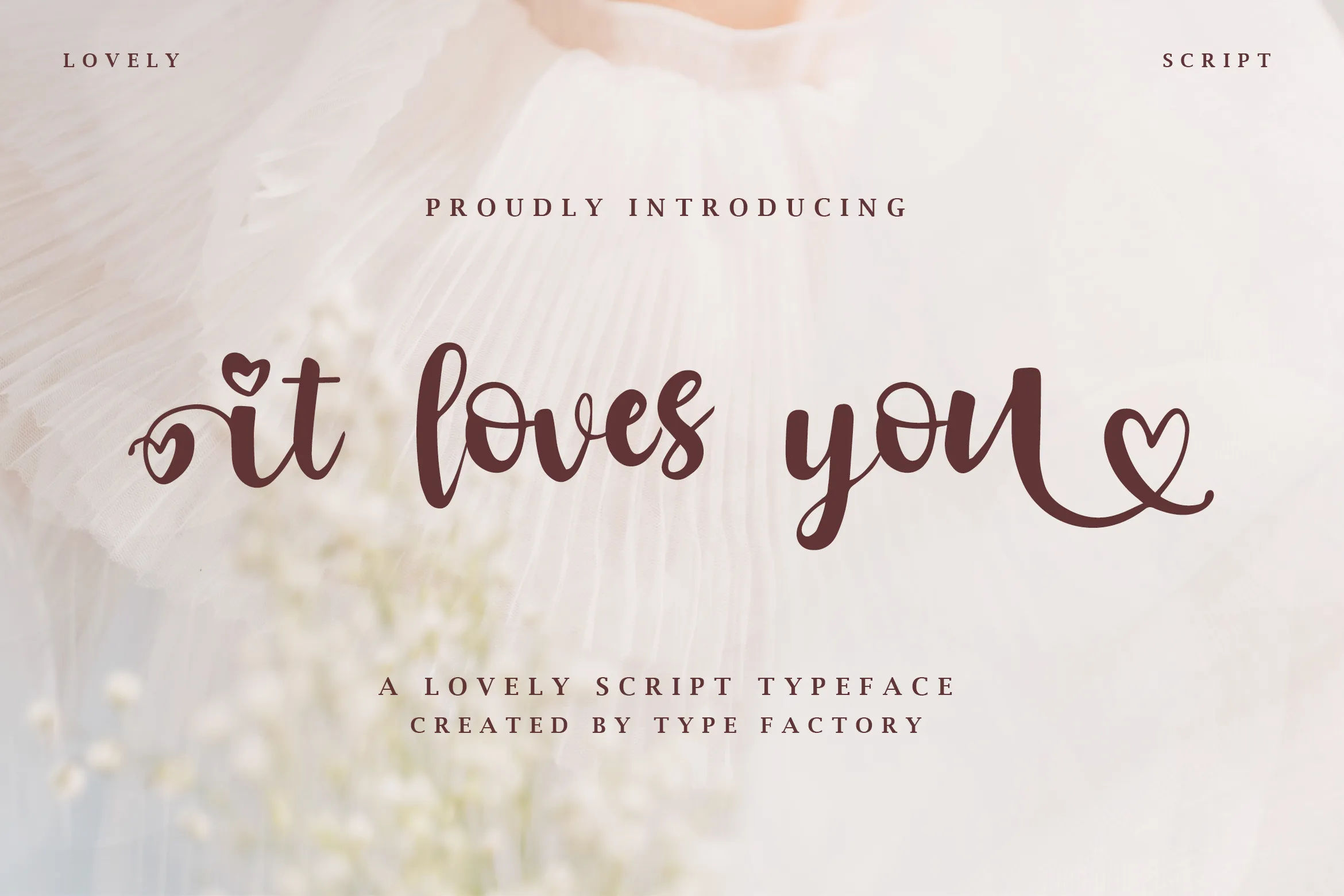
Font with high-contrast strokes and swirly loops make your message feel more admirable.
2. Happineast
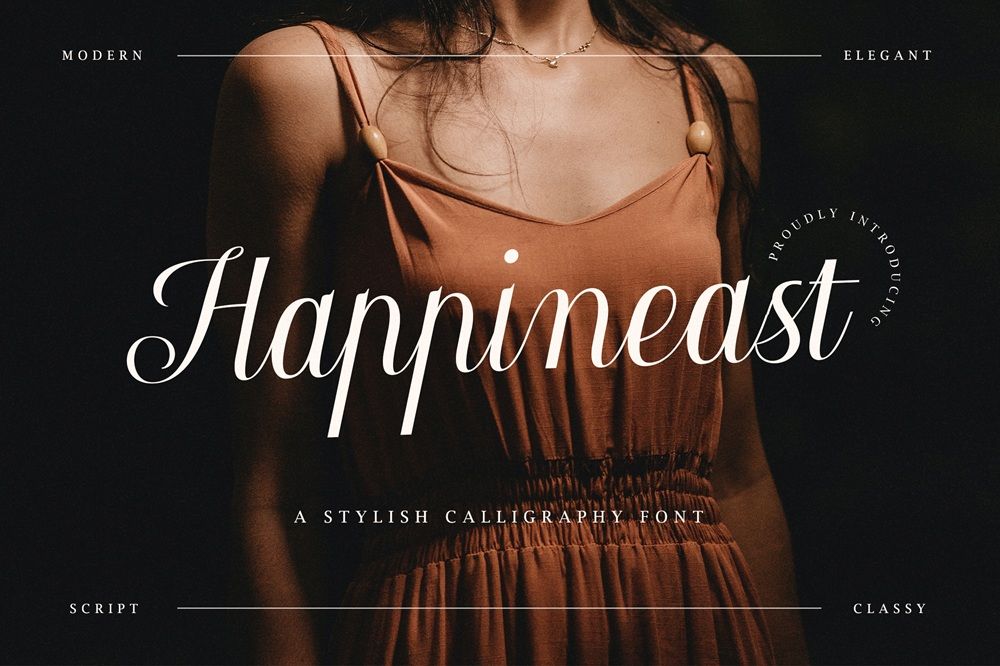
With its clean and neat calligraphic style, Happineast underscores the gratitude for your cherished one.
3. Rebutan
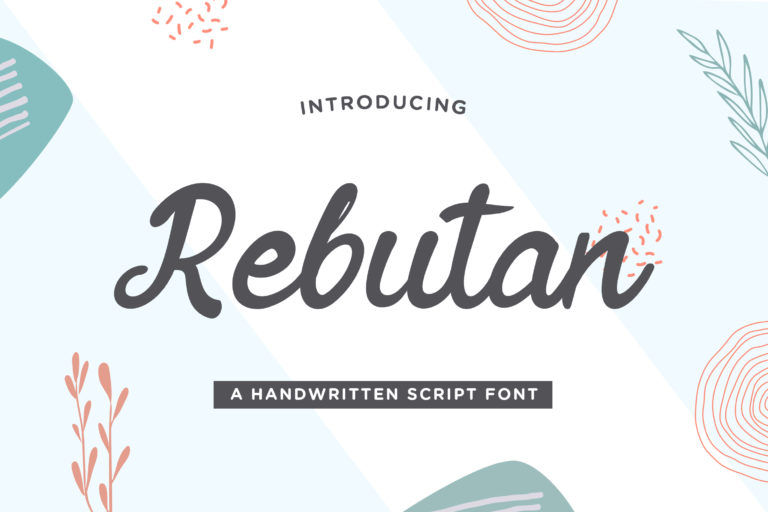
Pair your funny and witty happy Mother’s Day quotes with the playful tone of the Rebutan font.
4. Saluyu
Appearance-wise, Saluyu will express your message in a more personalized manner.
Also Read: 50 Inspiring Travel Quotes to Show the Spirit of Adventure
5. Balleria
A charming font for sentimental messages.
6. Fall Story
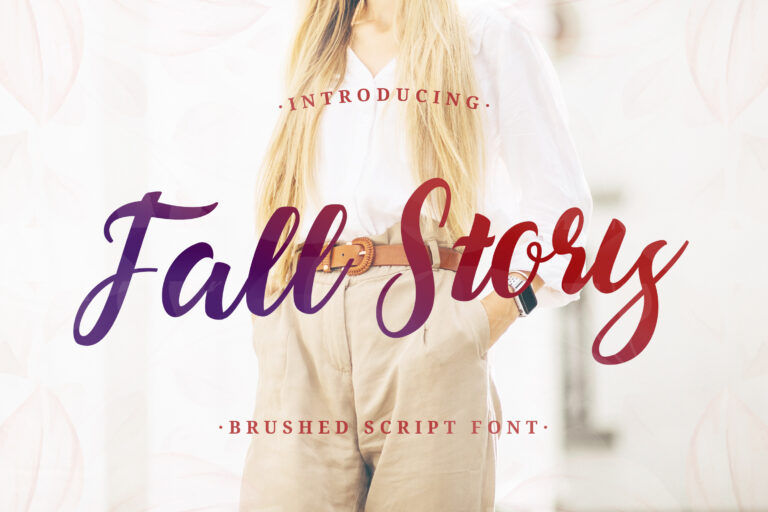
Put Fall Story to turn your quotes into something more trendy.
7. Seolatra
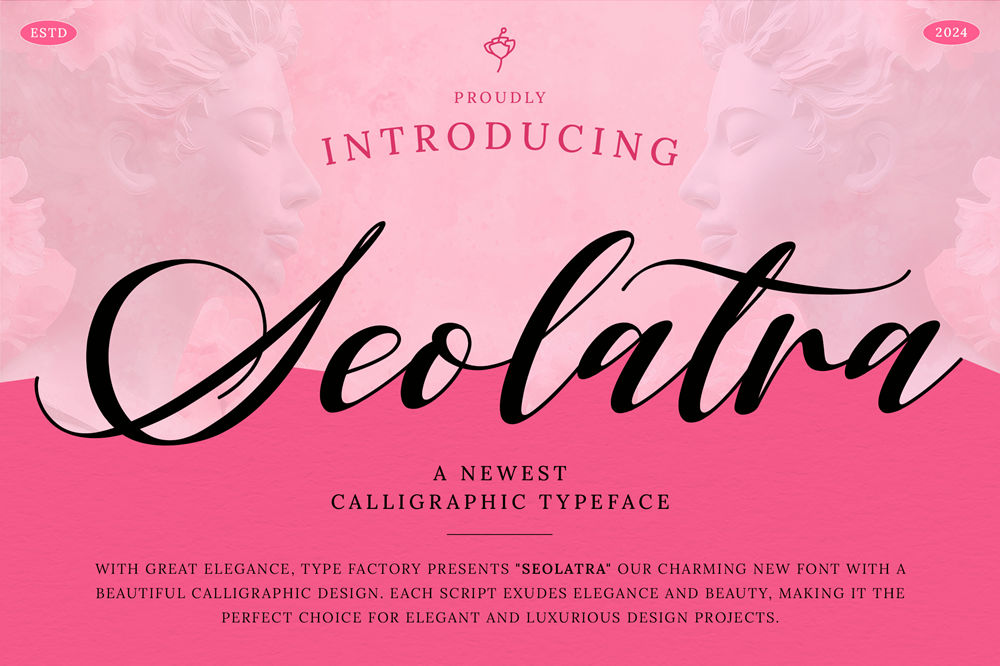
The classic look of Seolatra is best for luxurious card style.
Visualizing Feelings with Lovely Fonts